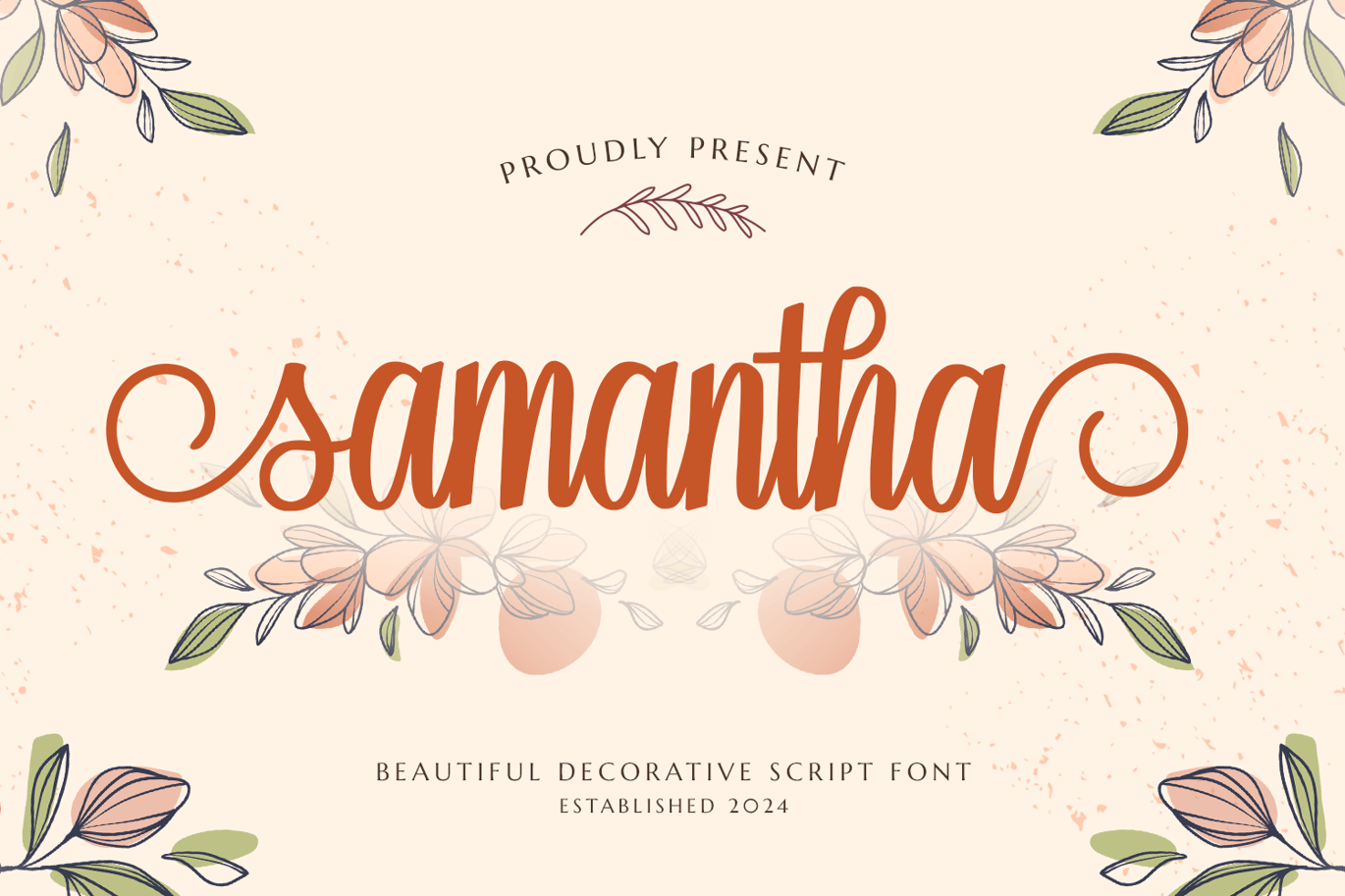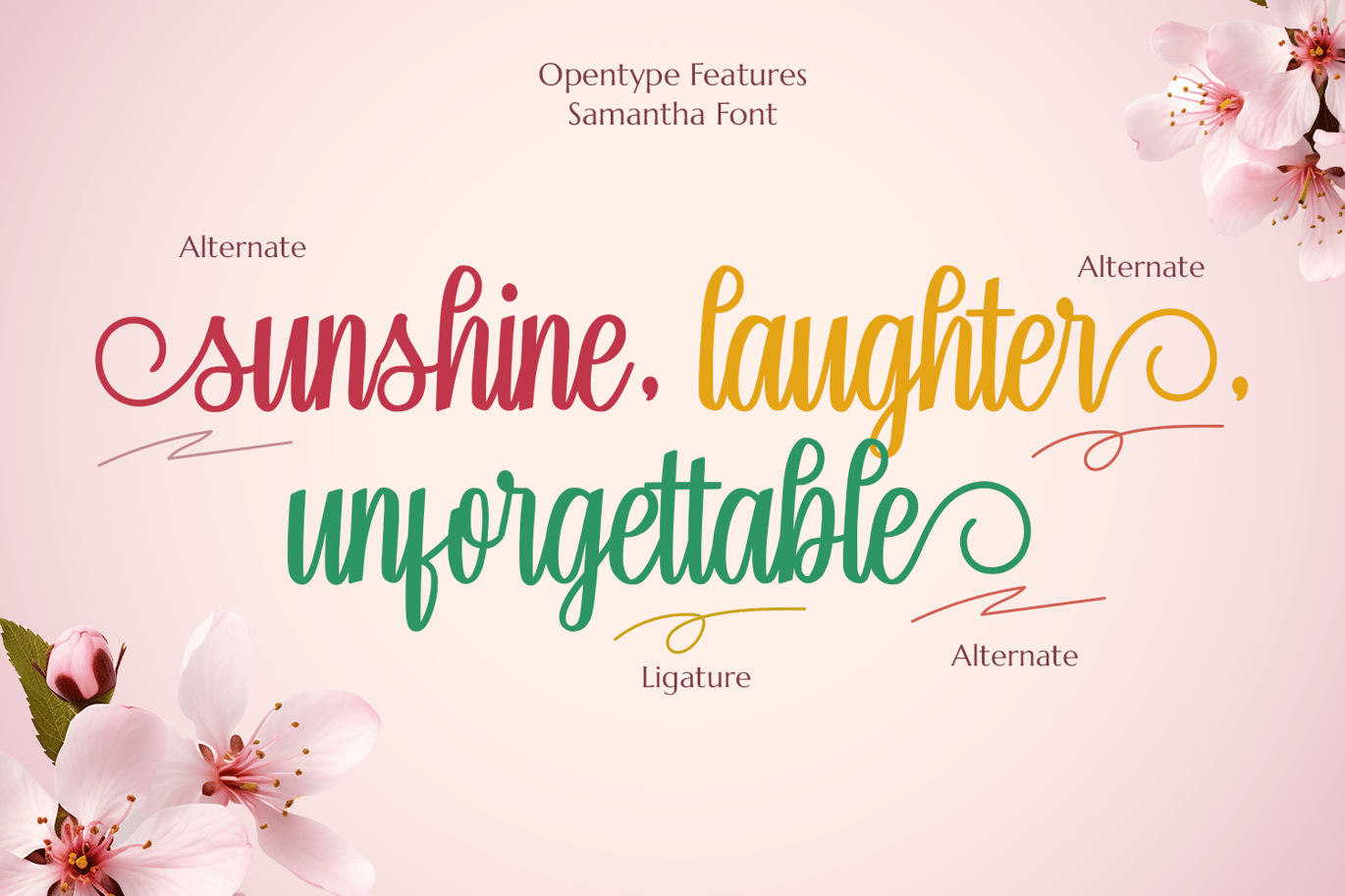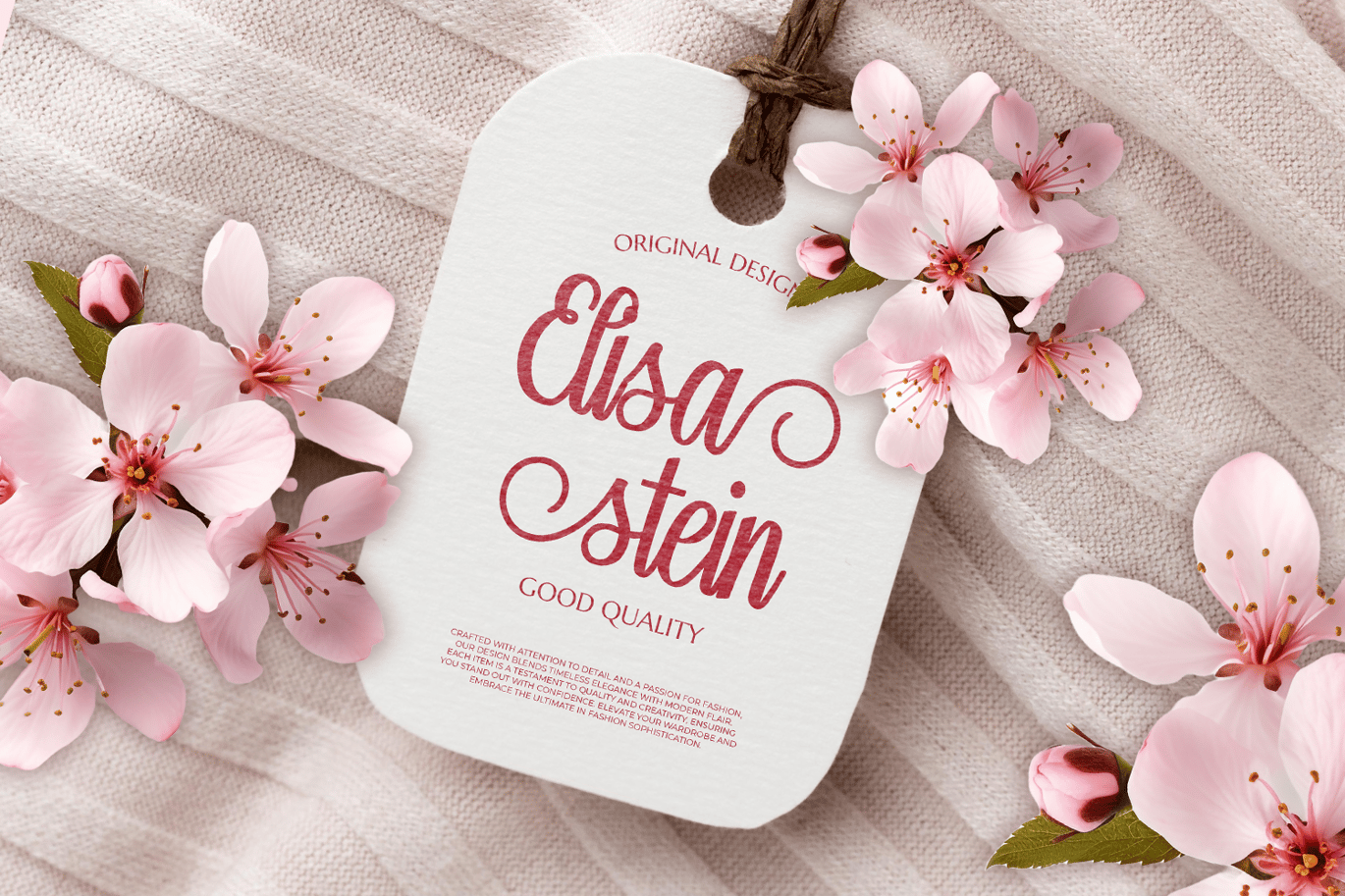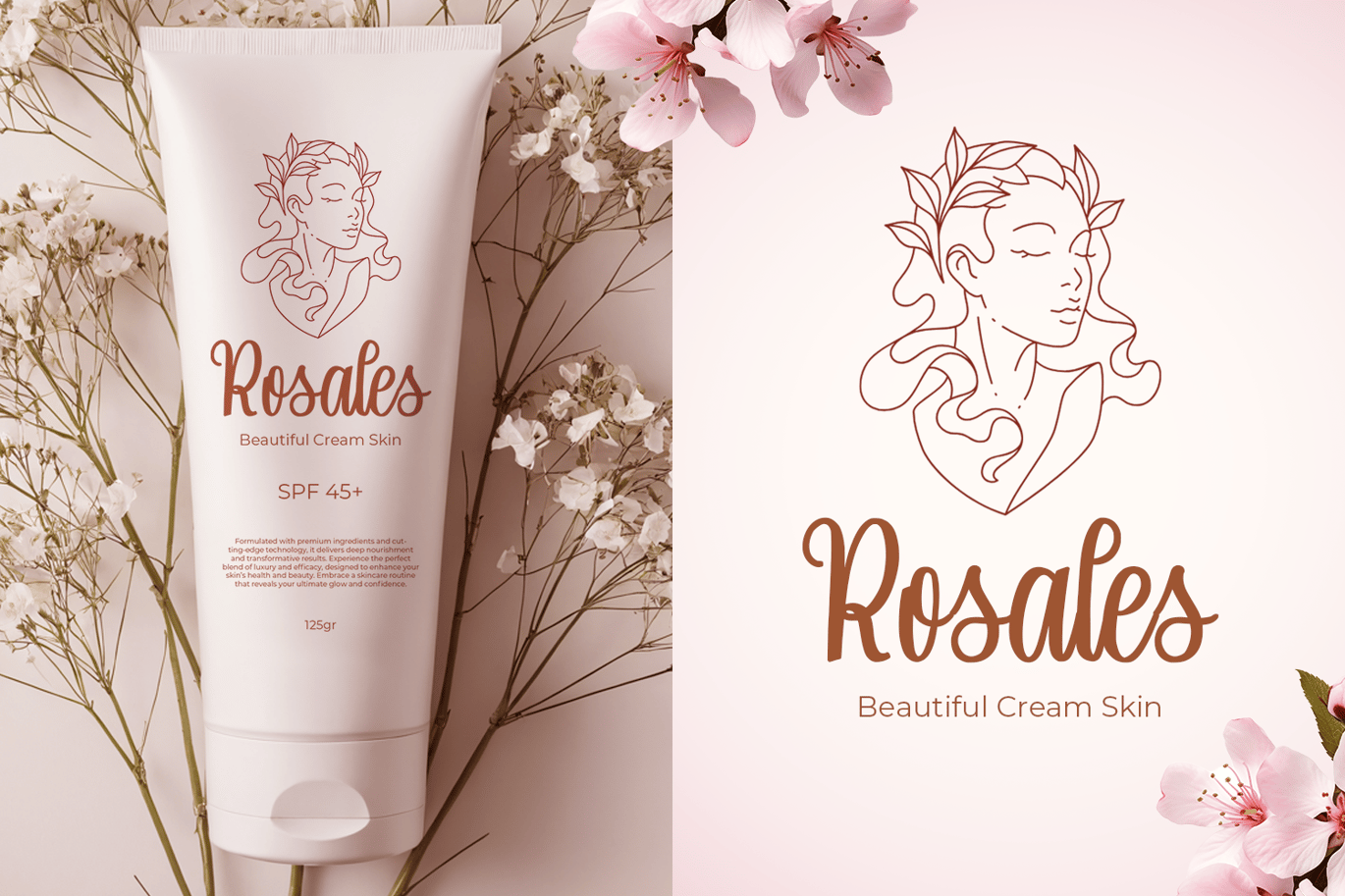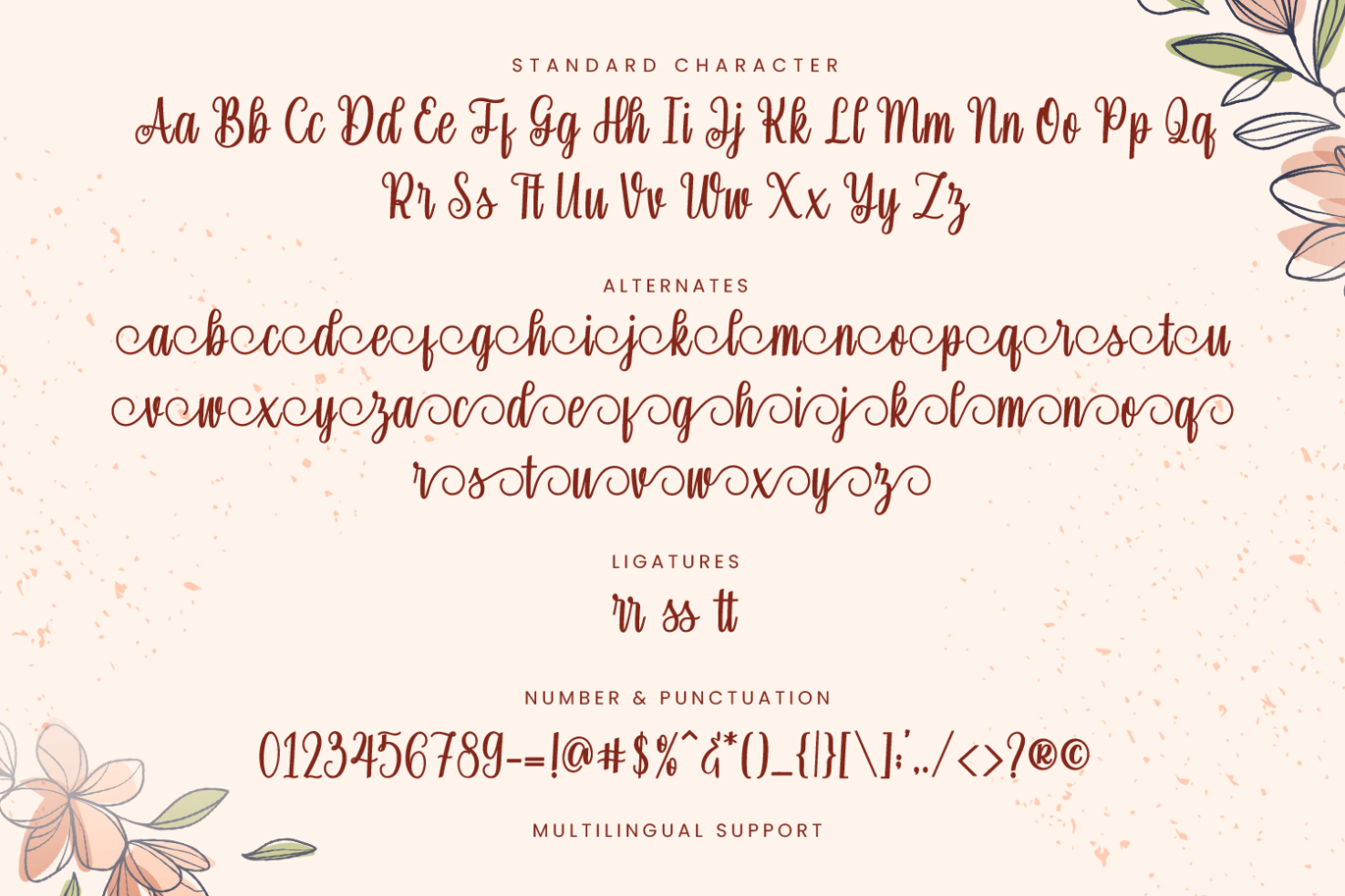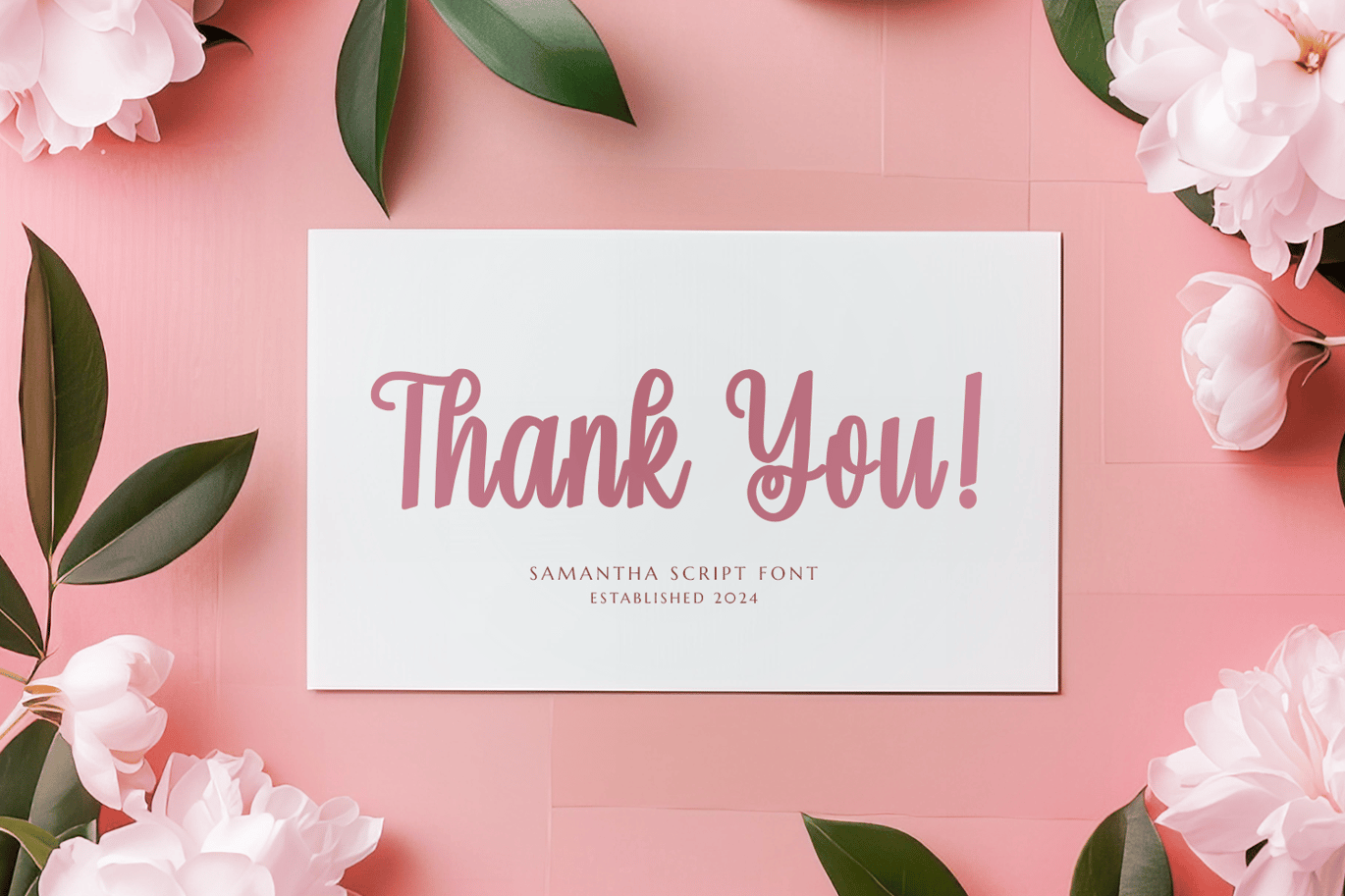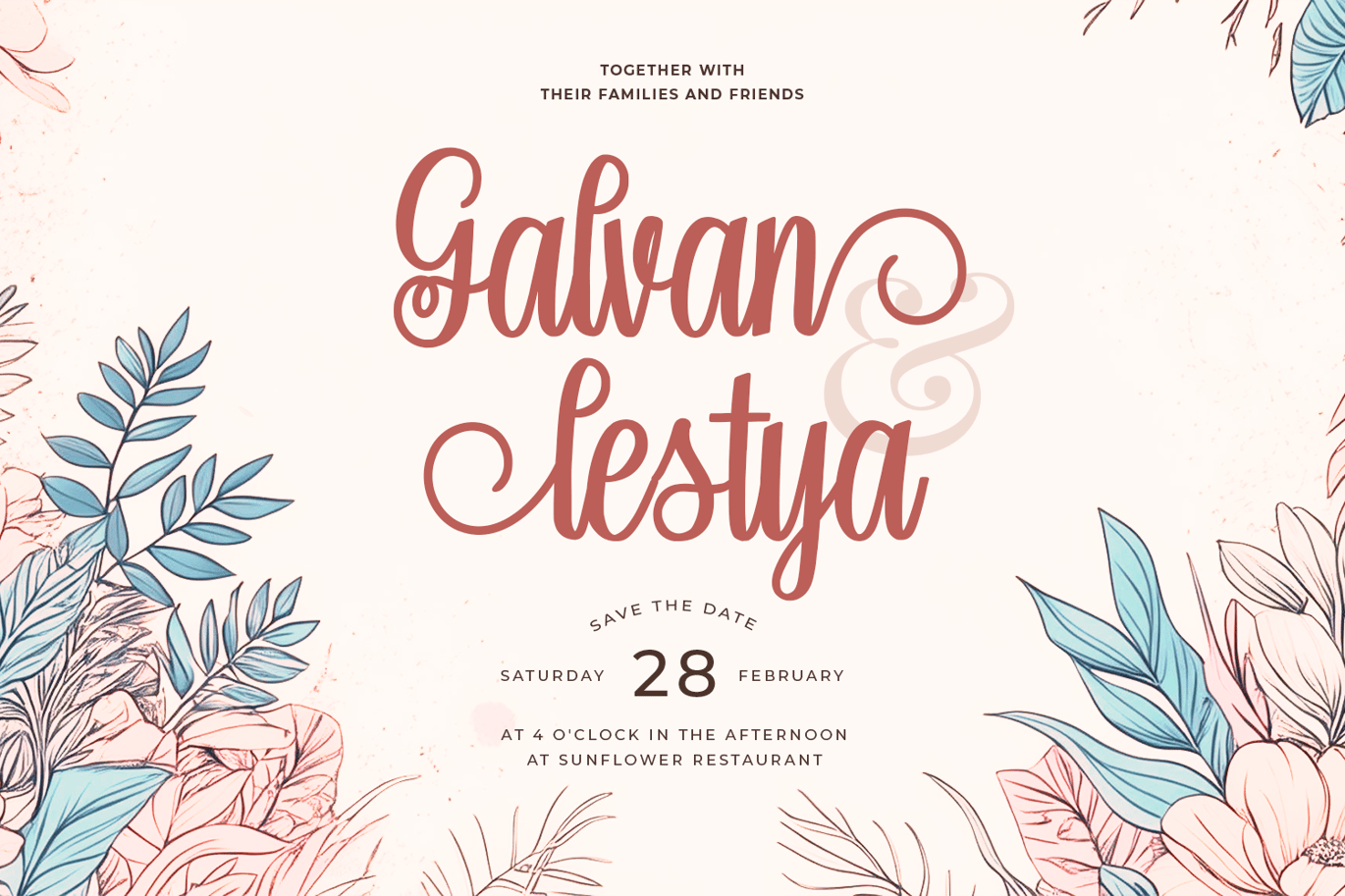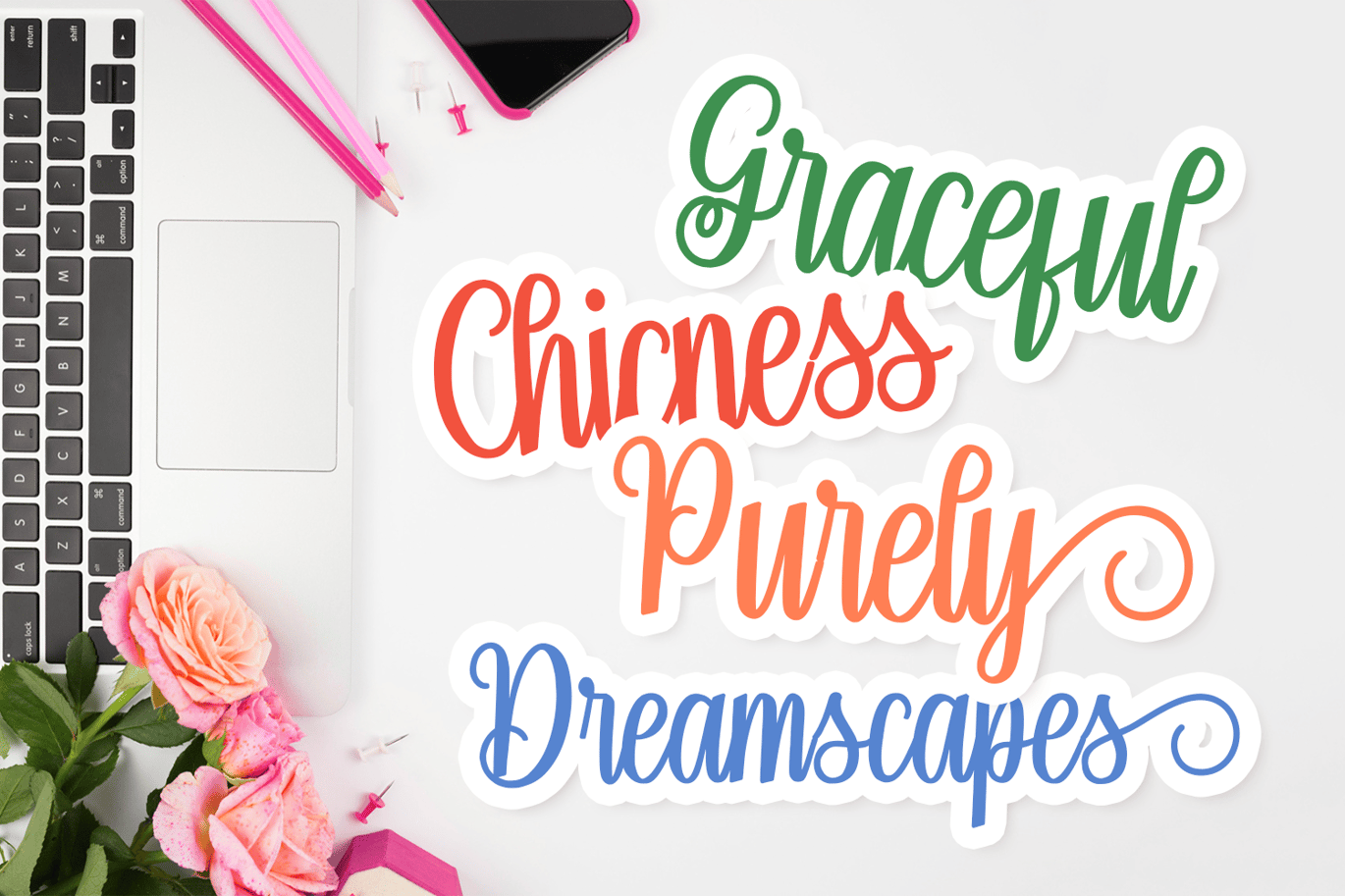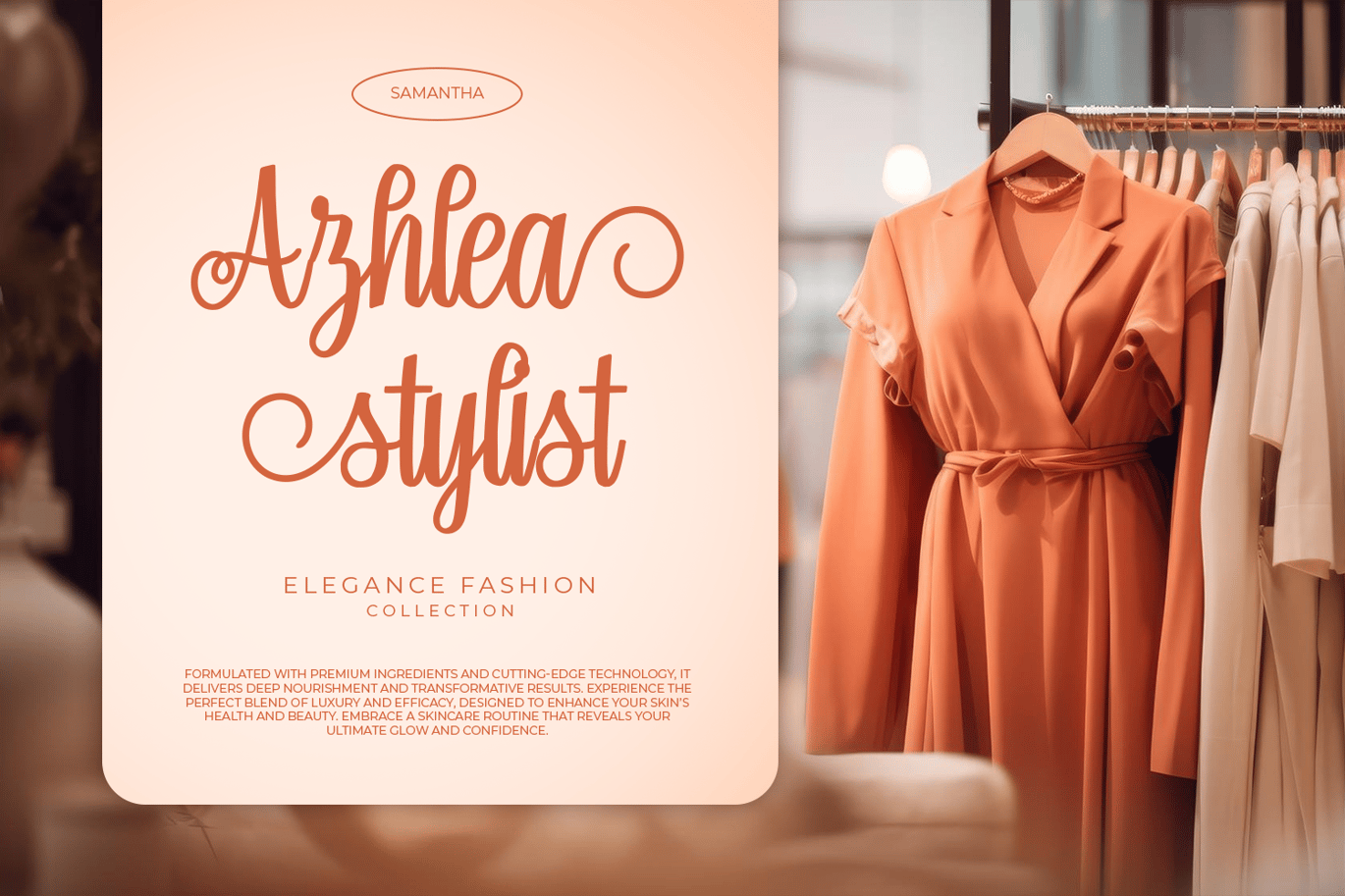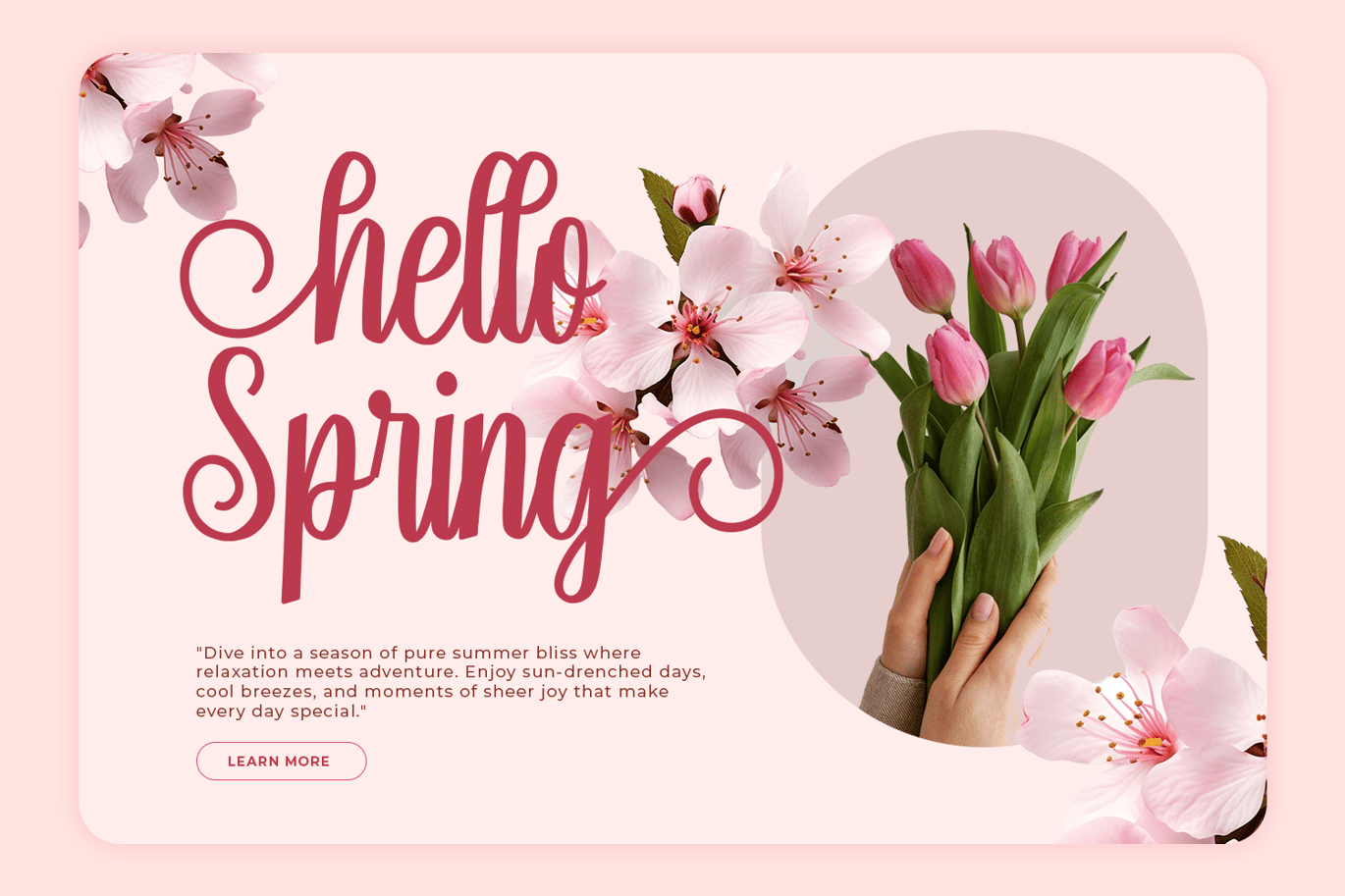
Samantha – Wedding Font
Introducing “Samantha,” a beautifully refined script handwritten font, perfect for adding a touch of sophistication to your creative projects. Ideal for weddings, invitations, birthdays, and seasonal events like Christmas, New Year, and Easter, Samantha effortlessly elevates any design with its graceful, flowing lines.
Each character in the Samantha font is thoughtfully designed with beginning and ending swashes, creating a seamless and elegant look. With an extensive range of alternates, this font offers endless possibilities for customization, making it perfect for everything from crafting and embroidery to Cricut projects and SVG designs. Whether you’re working on Thanksgiving decorations, winter-themed crafts, or holiday cards, Samantha adds a personal and artistic touch to every creation.